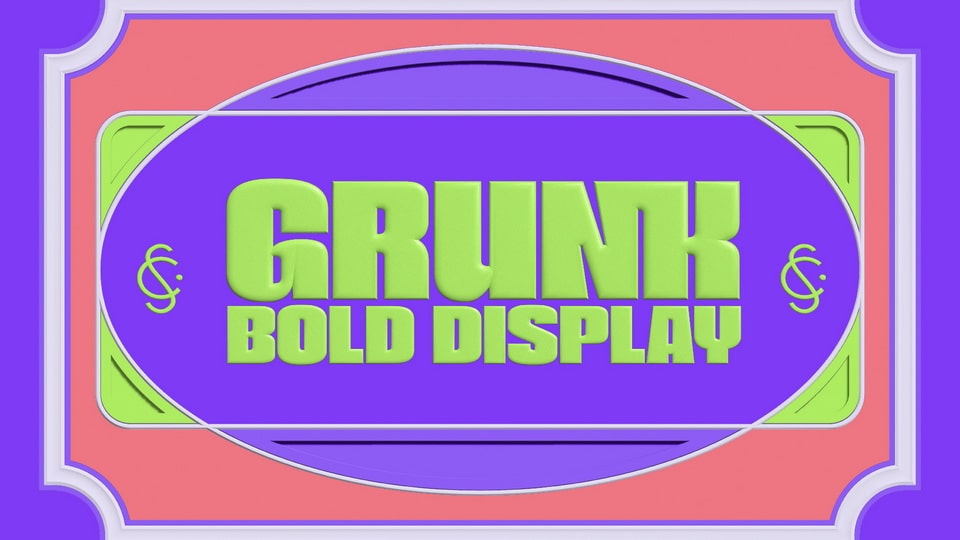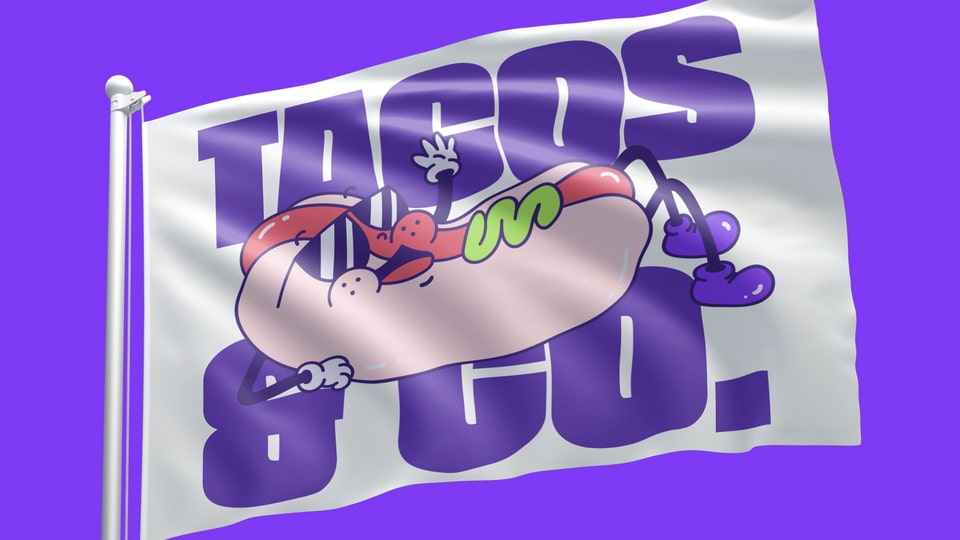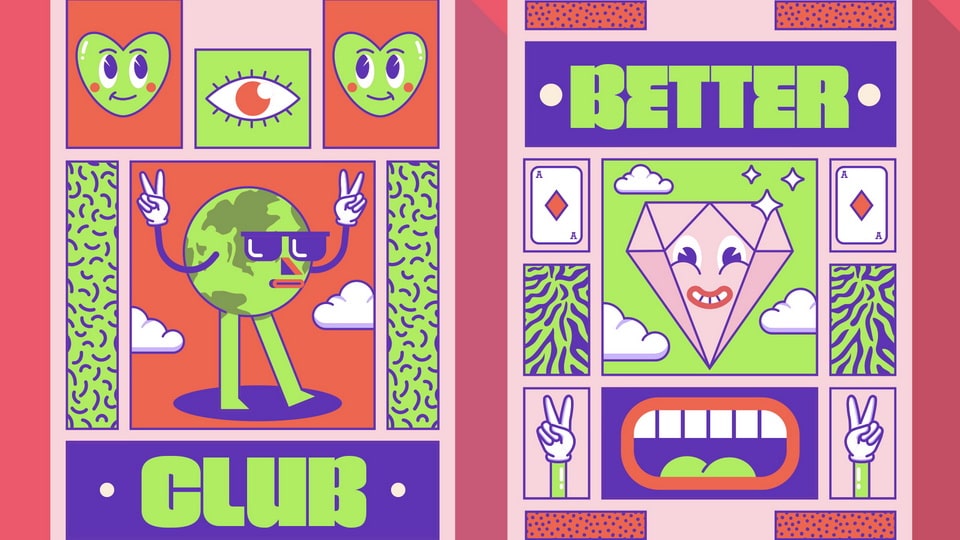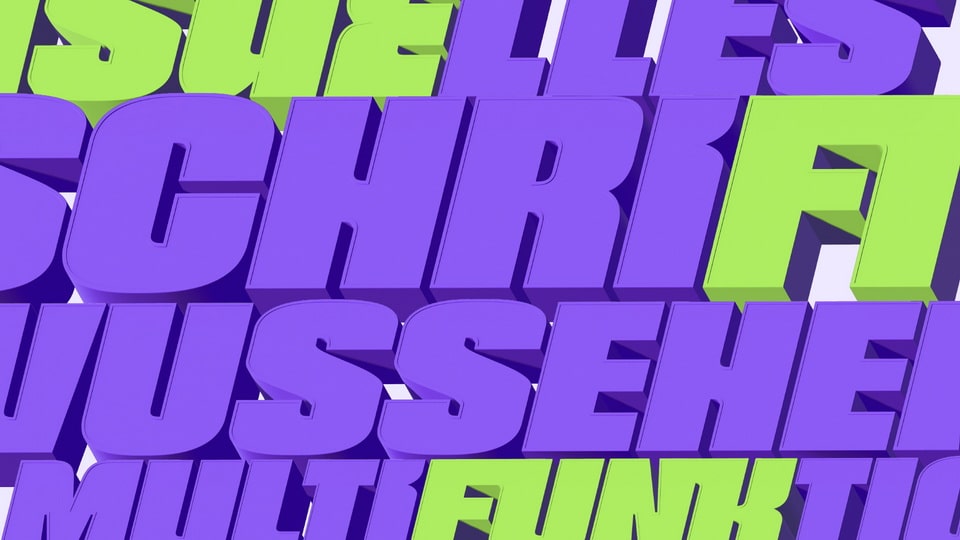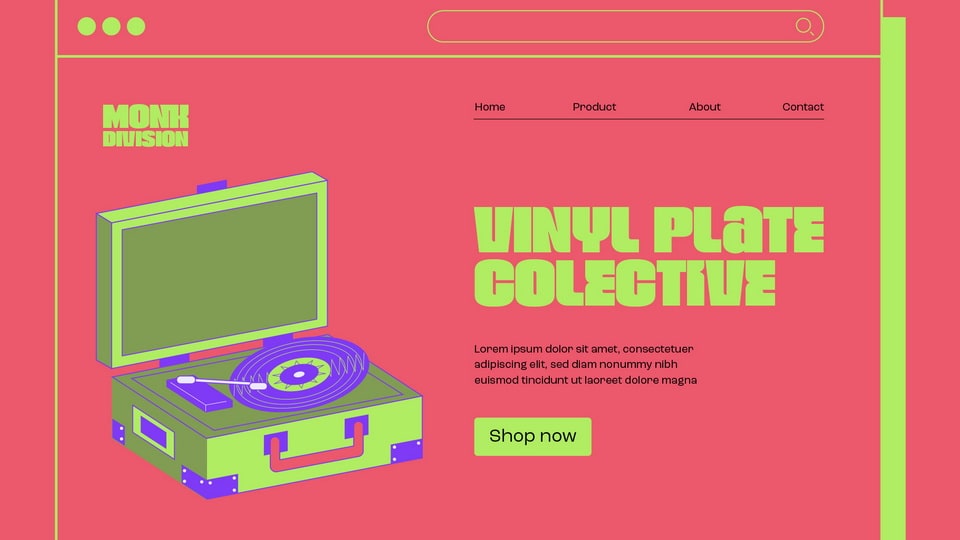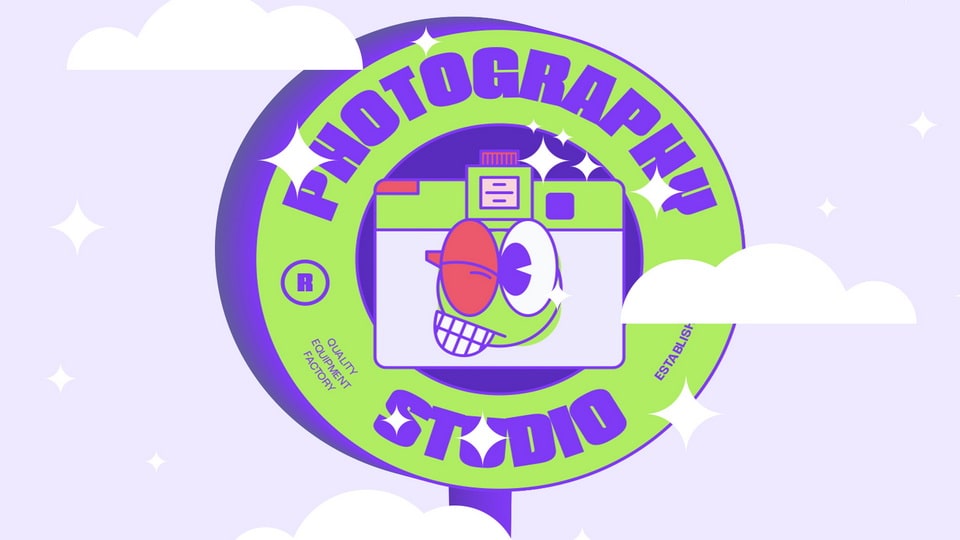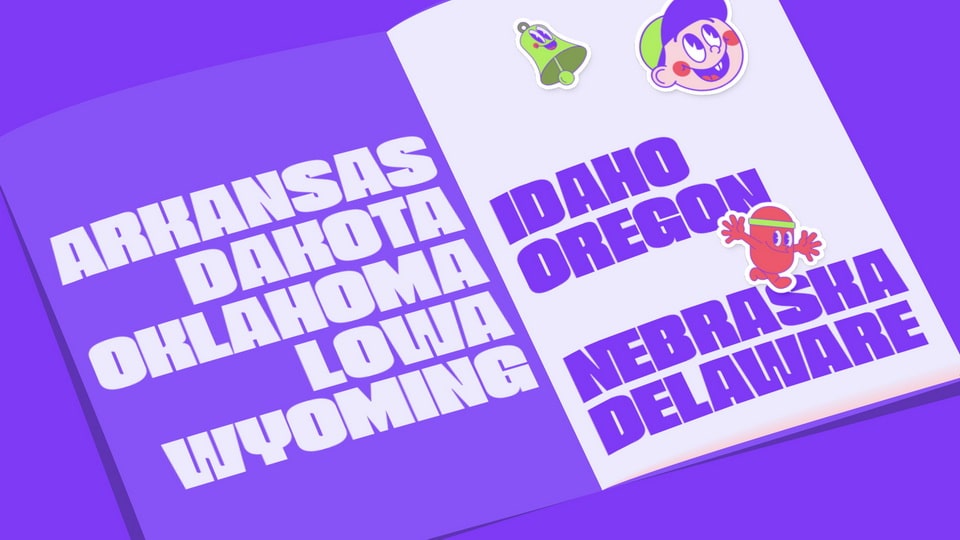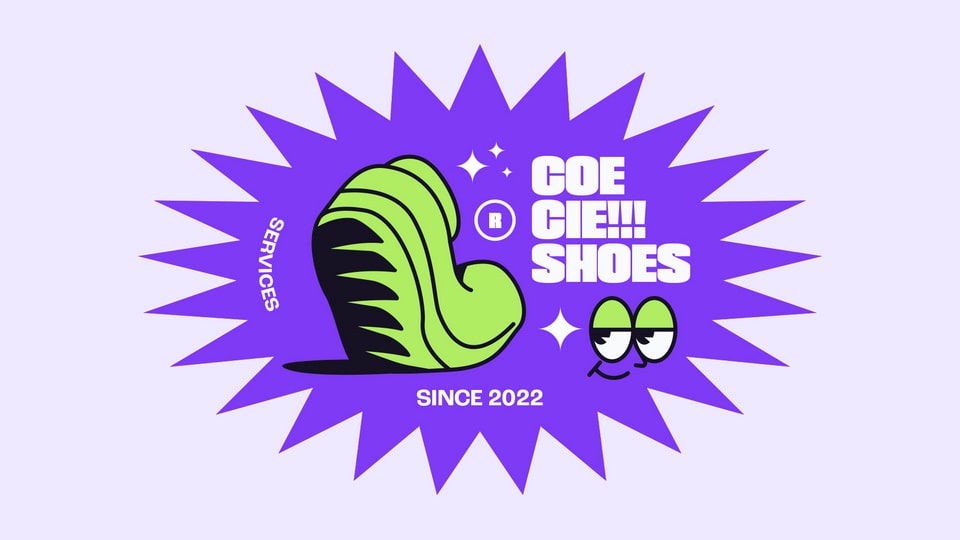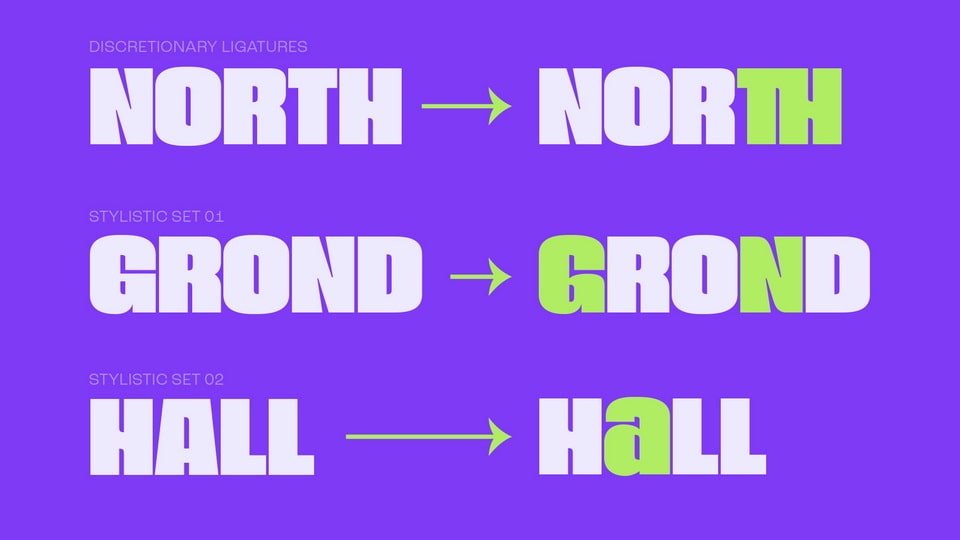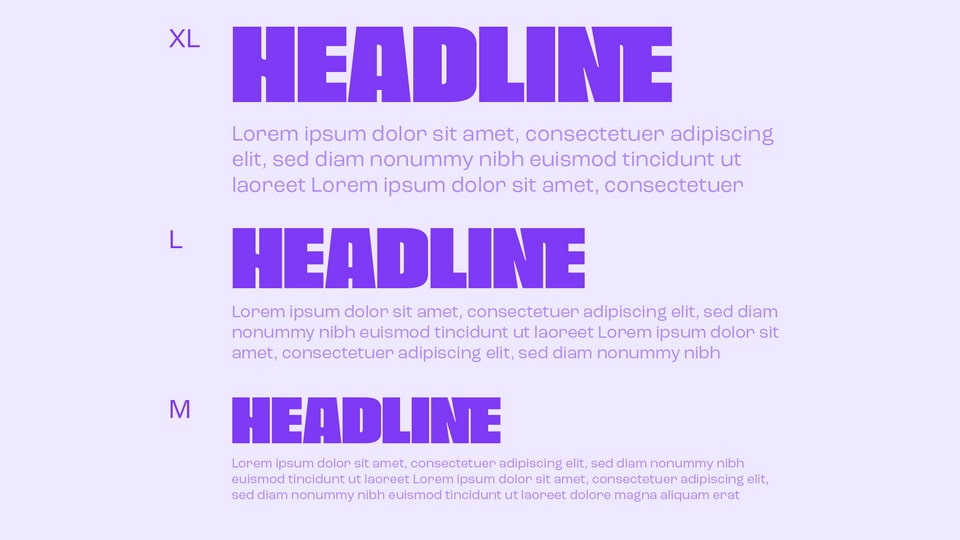
Our products prioritize big media and the Headline of your design project.
Named Grunk Bold Display. Great for editorial or display projects, even for print media. In this typeface, we emphasize some curved corners as a characteristic of the character. We take approach to the legibility of this typeface on simple letterform, tight angles, and flexible line curves in each typeface.
Technically, this typeface has 2 mainstay features: the alternate character that looks boxy and at the same time looks groovy and very modern. Then there’s the experimental Ligatures feature as precise as standard characters. Then, the feature that we always include in each of our works is the multilingual characters, especially the extended Latin characters that provide almost 100 languages.